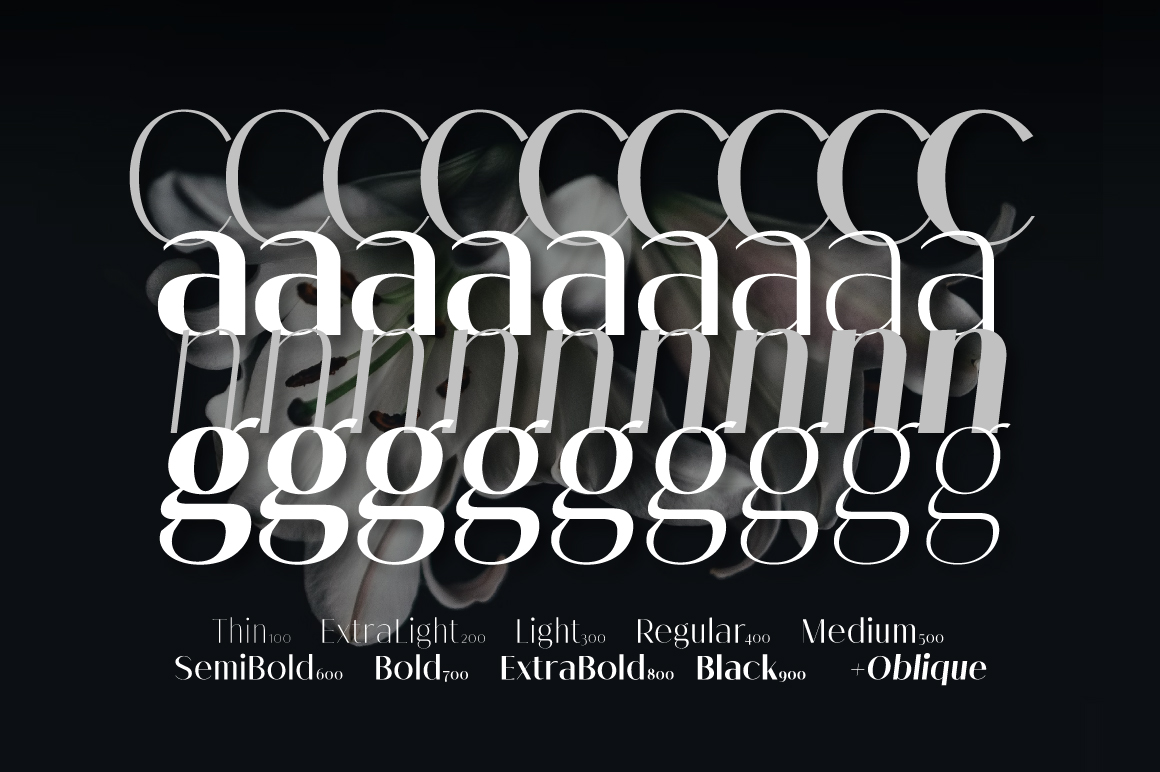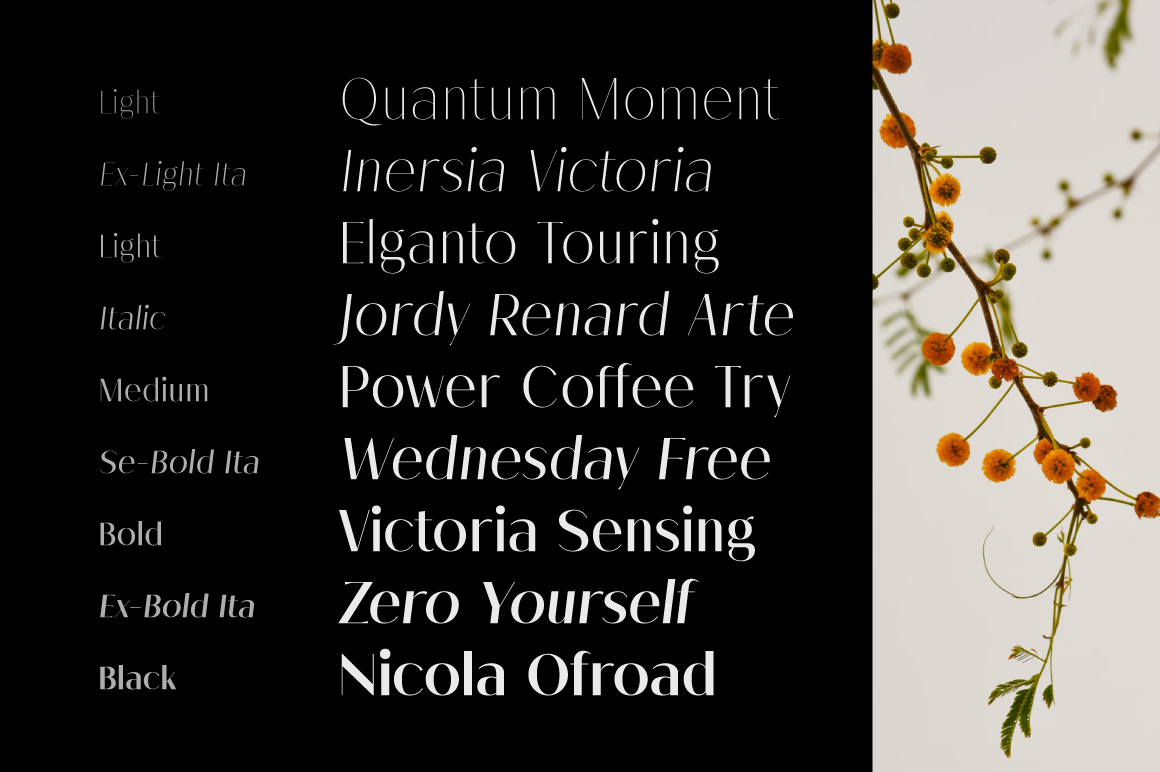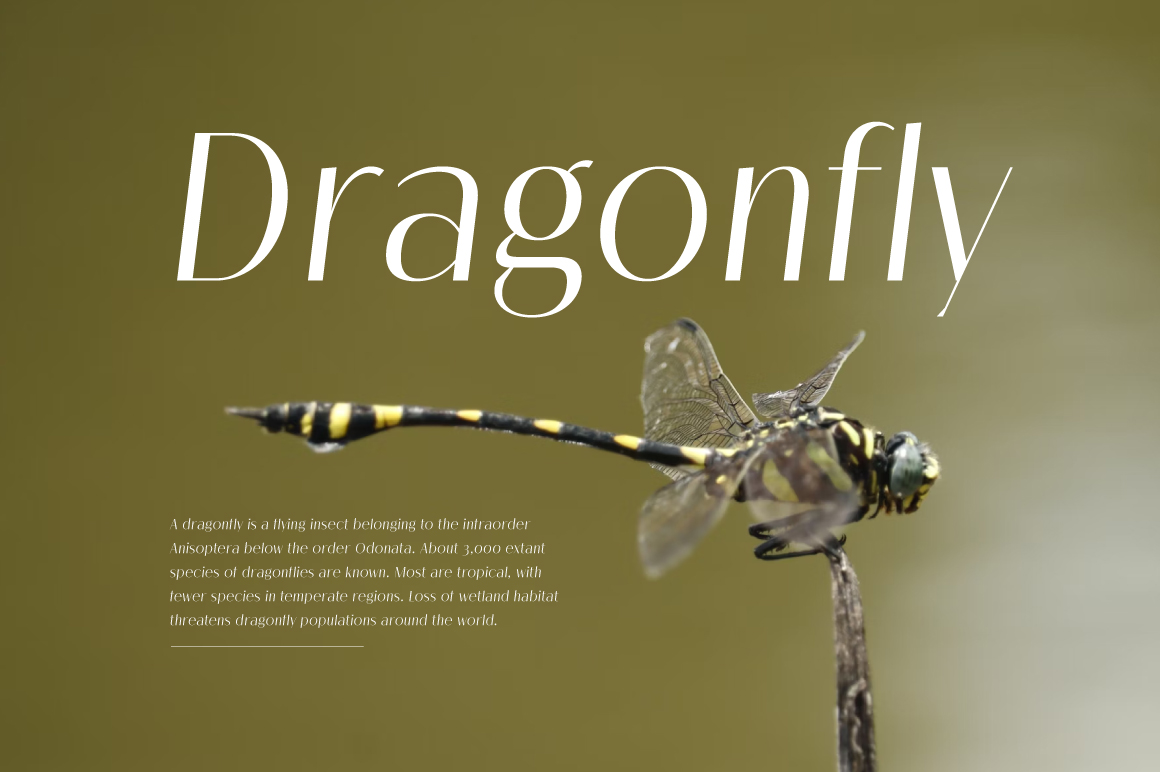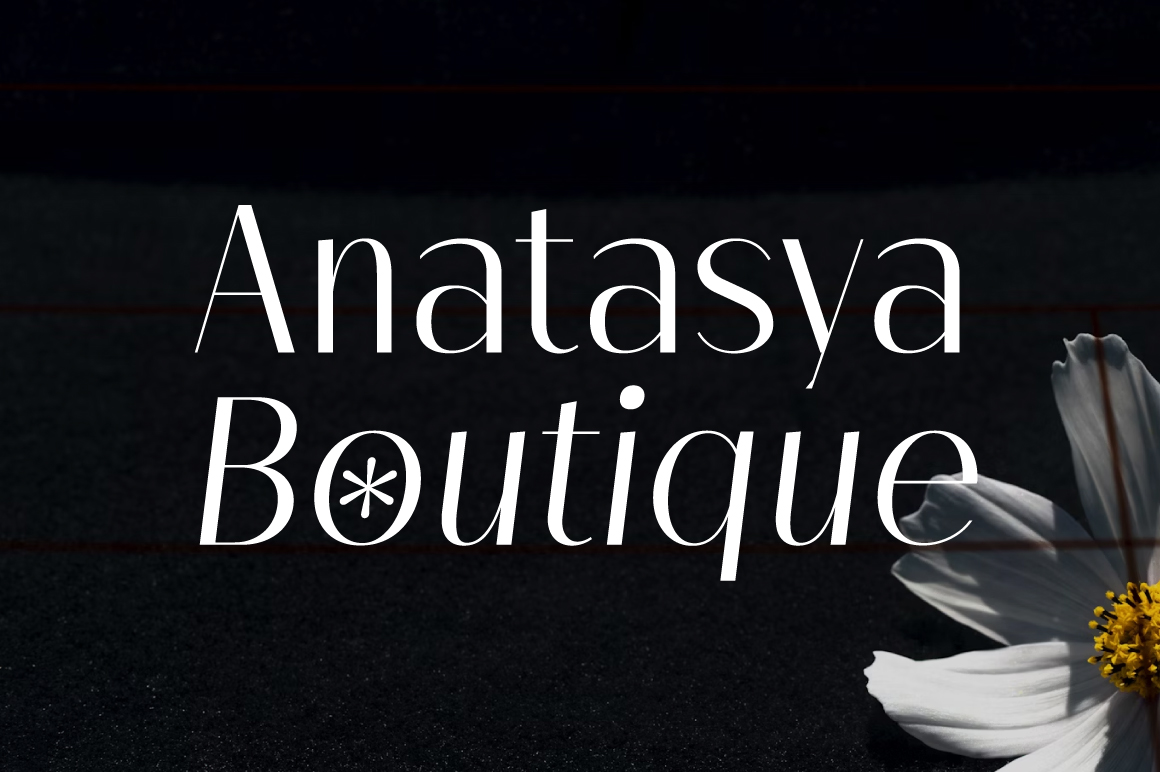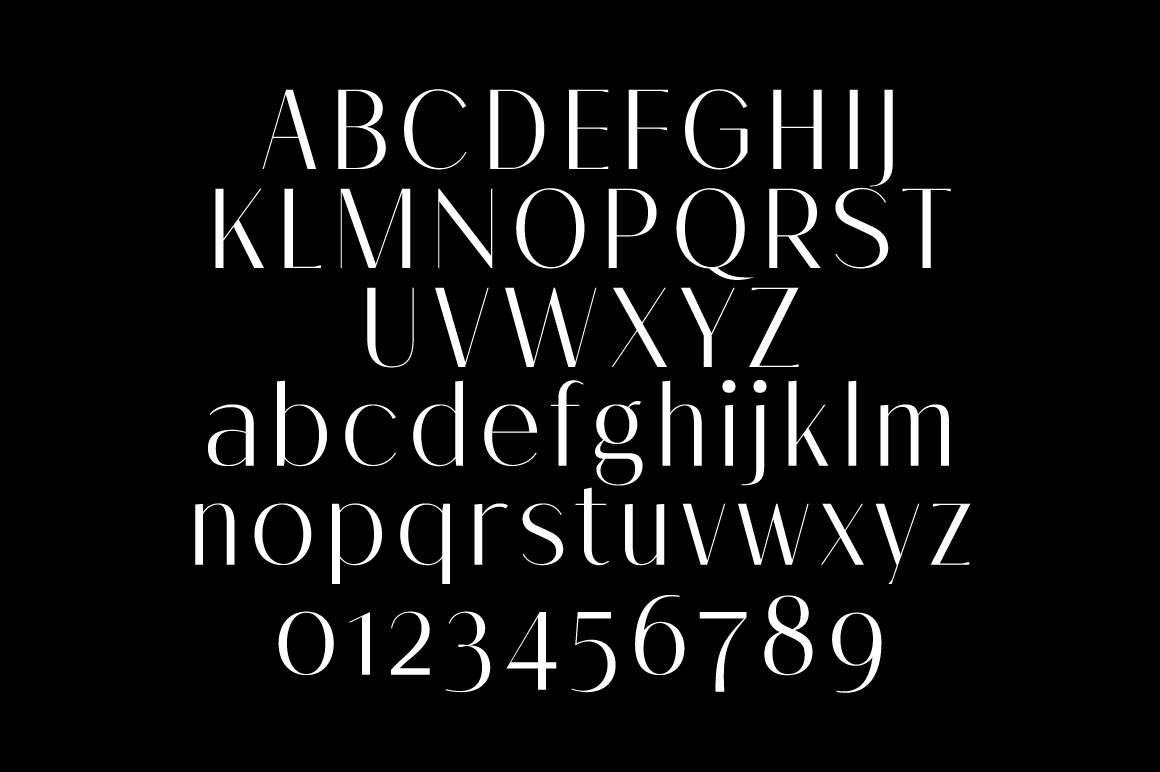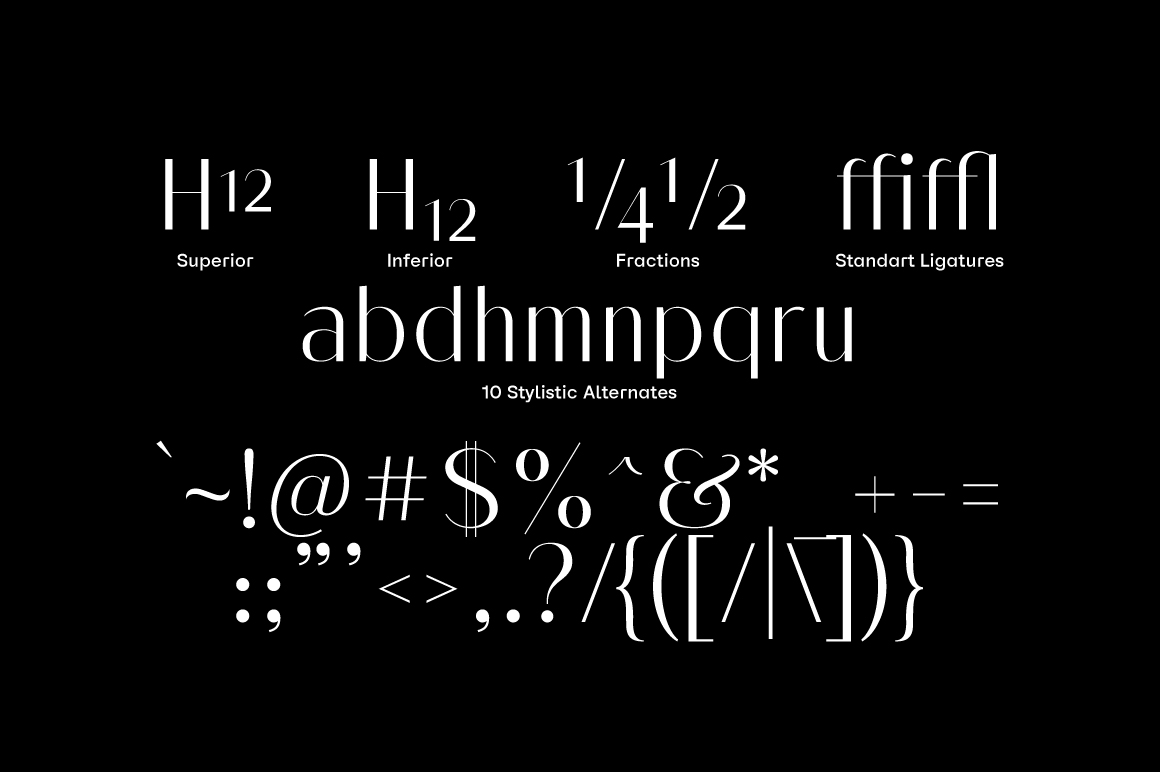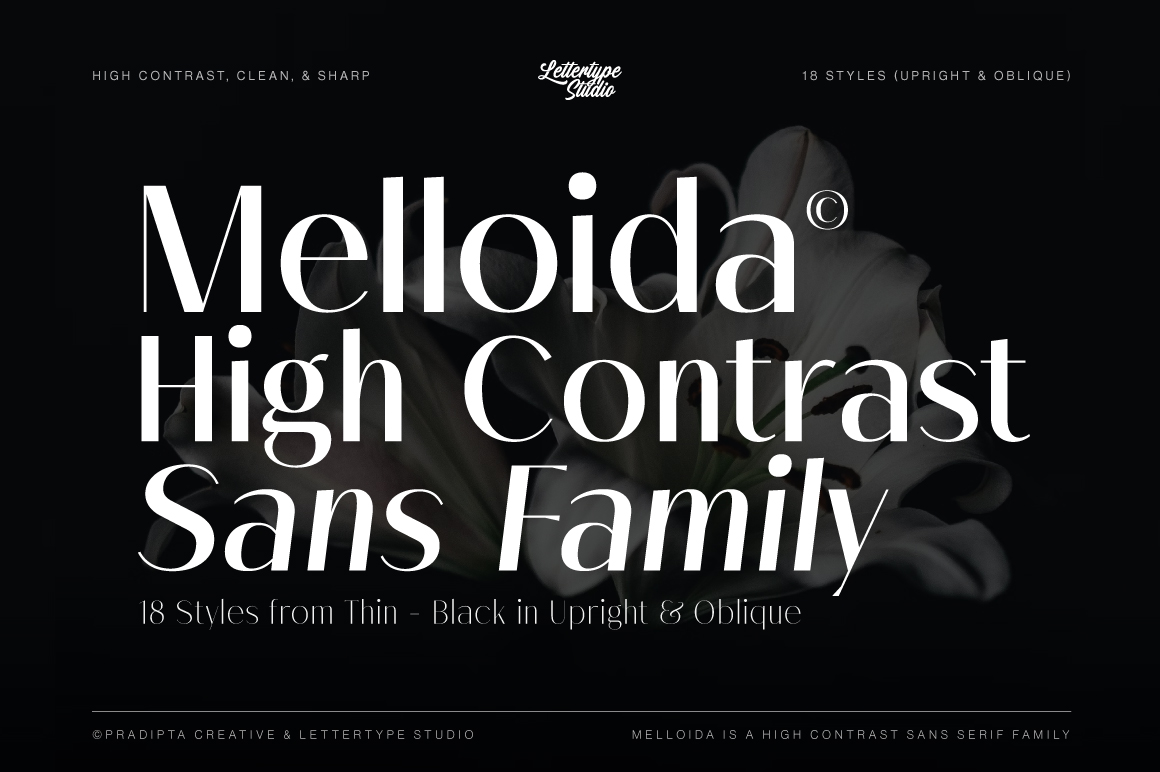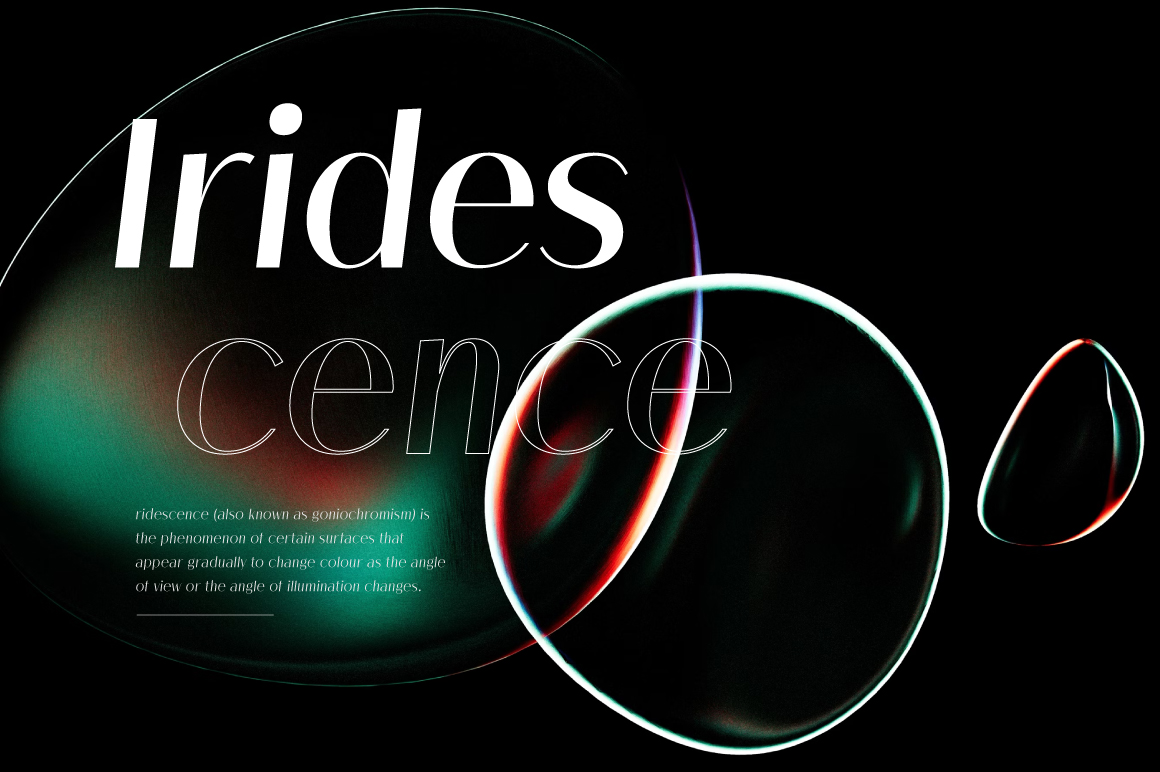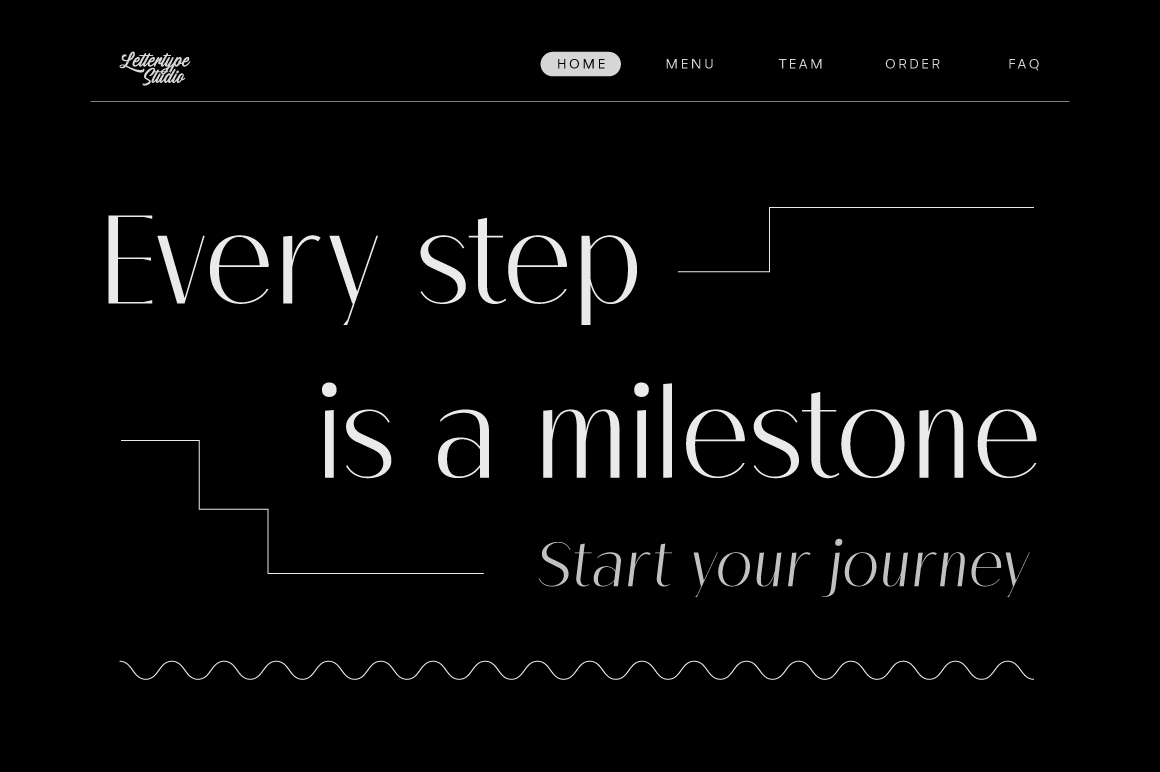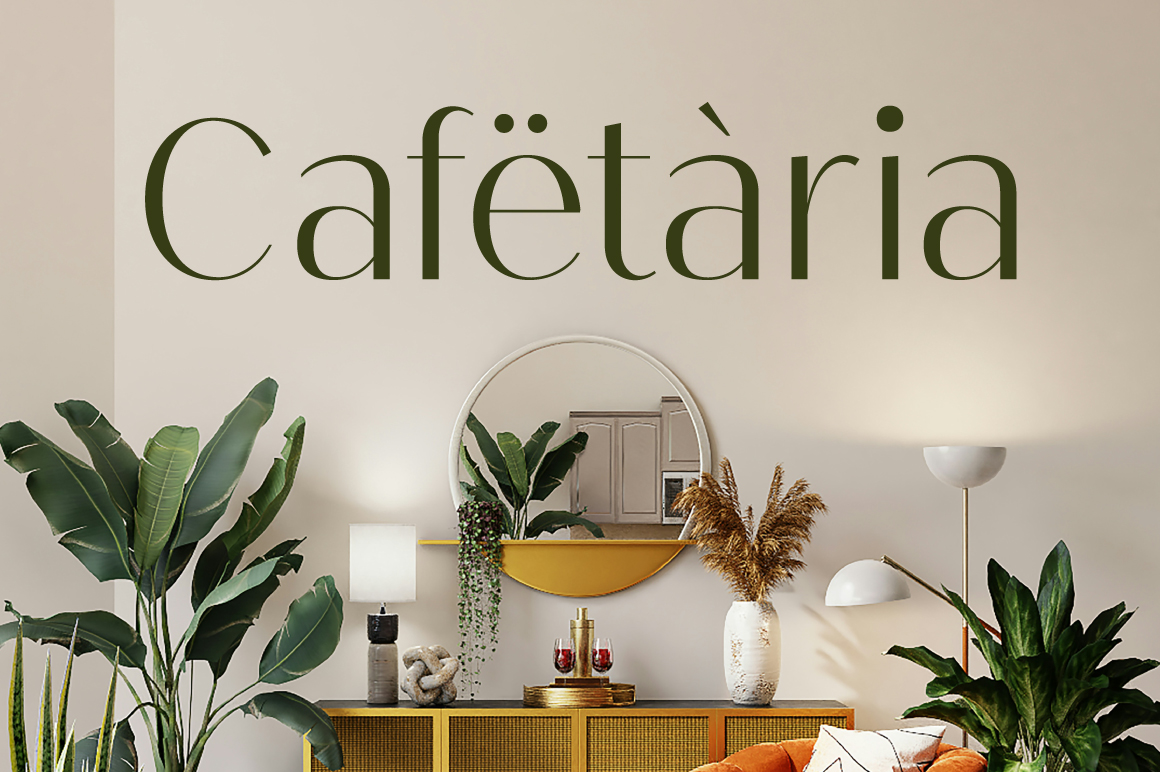
Melloida is ​a high-contrast sans serif font family. These typefaces combine clean lines with striking contrast, blend sharp geometric precision with refined stroke variations, and offer a modern yet timeless aesthetic. Ideal for branding, editorial layouts, and digital interfaces, they provide versatility and clarity across various applications. Whether you’re crafting a minimalist logo or an engaging website, these fonts deliver both functionality and style.
There is a wide range of weights, from thin to Black, including 18 weights in Upright and oblique styles. OpenType features include stylistic alternates (a, b, d, h, m, n, p, q, r, & u) 30 glyphs total, figure variations (superiors, inferiors, fractions, and standard ligatures), and broad Latin language support.
These geometric, high-contrast fonts are crafted with impeccable legibility and sleek, seamless aesthetic appeal. They are clean, modern, and versatile options for any project, including fashion, print design, social media, creatives, branding, UI/UX, web typography, packaging, or editorial design. They will elevate your creative projects and keep your designs on-trend.
Melloida Features:
• 18 Styles
• Upright & Oblique
• 506 Glyphs Total
• 270+ Languages Support
• Fashion branding, editorial layouts & magazines
• UI/UX, web typography & digital interfaces
• Minimalist logo design & modern advertising
• Packaging, posters & creative visual identities
• Corporate presentations & lifestyle content
Melloida